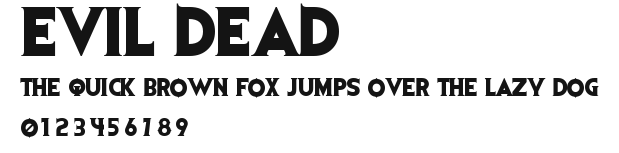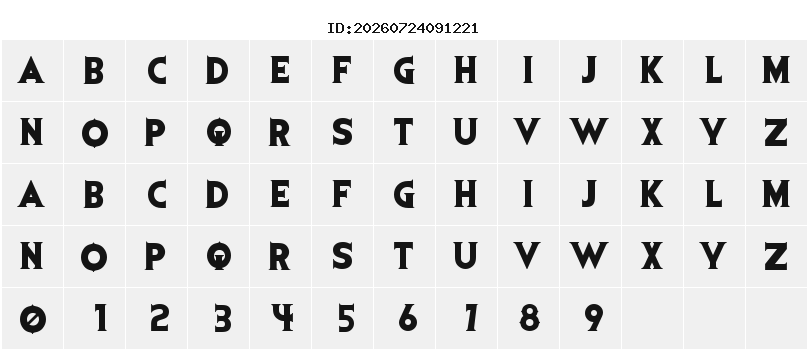
• Font Name: Evil Dead
• Font ID: Macromedia Fontographer 4.1 Evil Dead
• Full Font Name: Evil Dead
• Version: Macromedia Fontographer 4.1 24/11/02
• PostScript Name: EvilDead
• Character Count: 115
About Evil Dead.ttf
Evil Dead.ttf is a modern, elegant sans-serif font designed for ultimate readability and visual harmony. Perfect for branding, headlines, web design, and print materials.